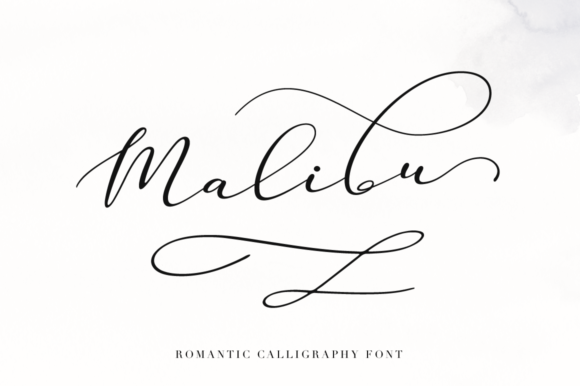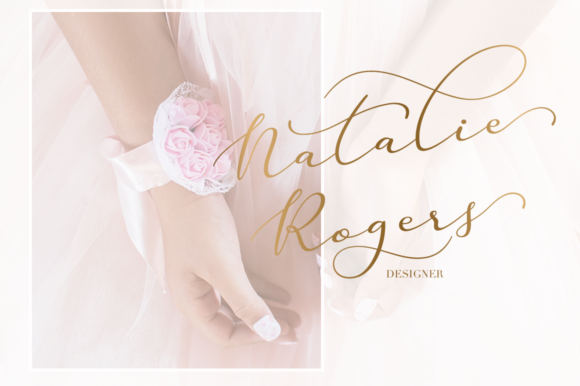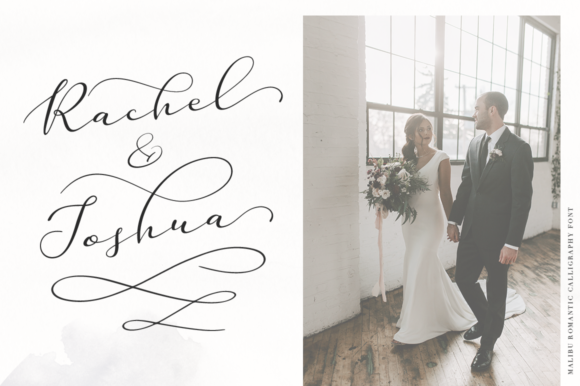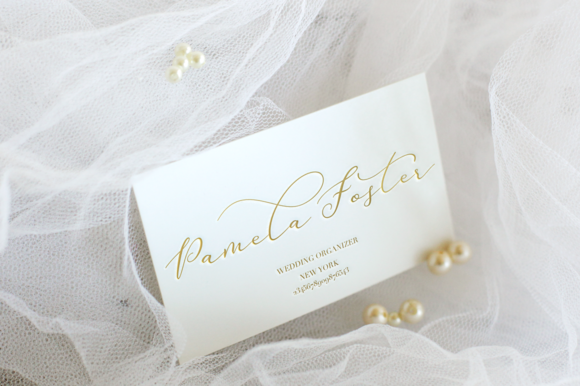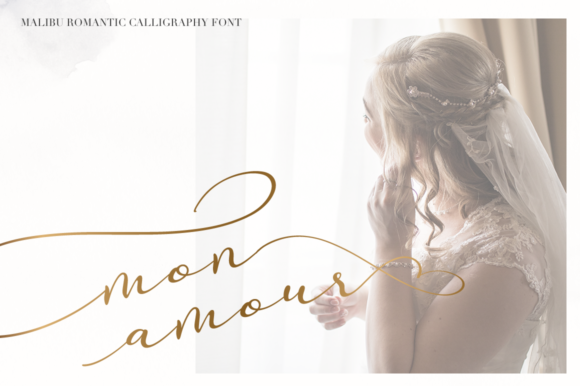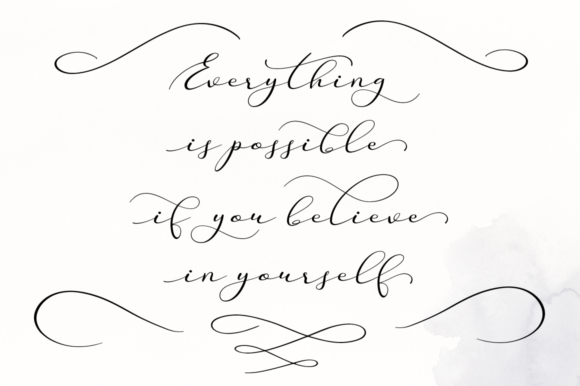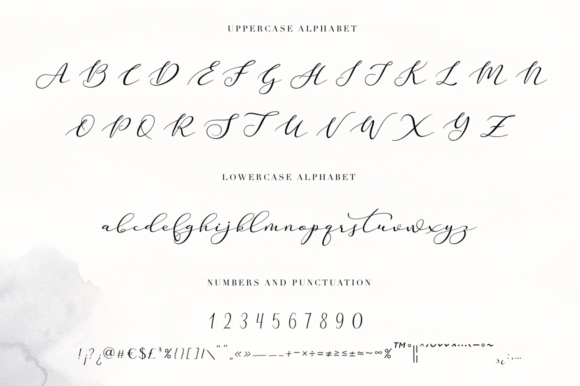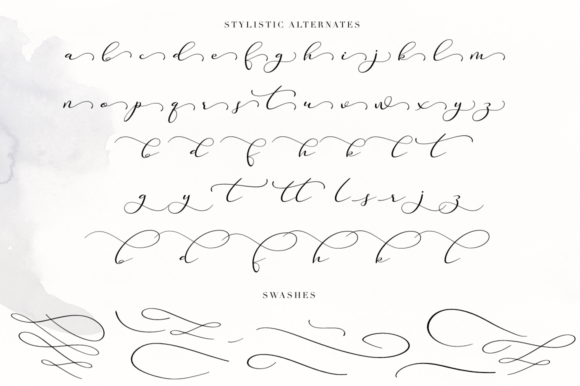
Malibu Font
About Malibu Font
Malibu is a fresh handmade calligraphy script font.
It’s the idea font for branding and adding decorative typography to any project.